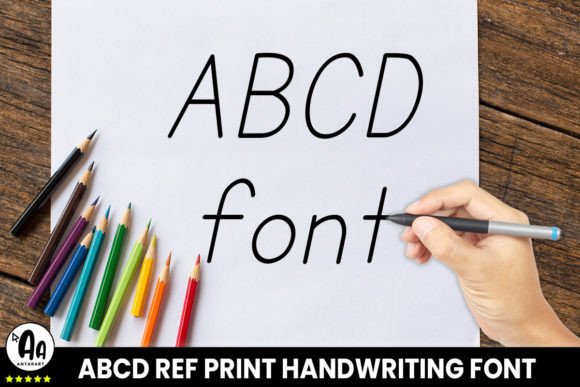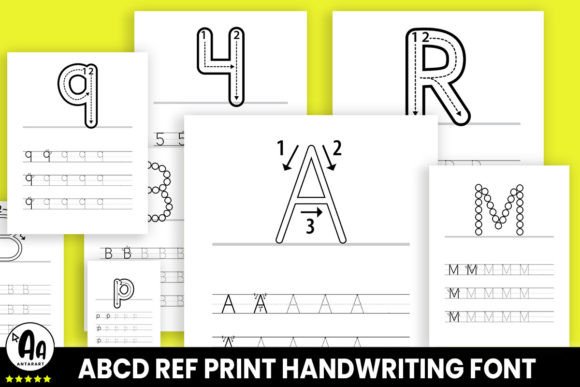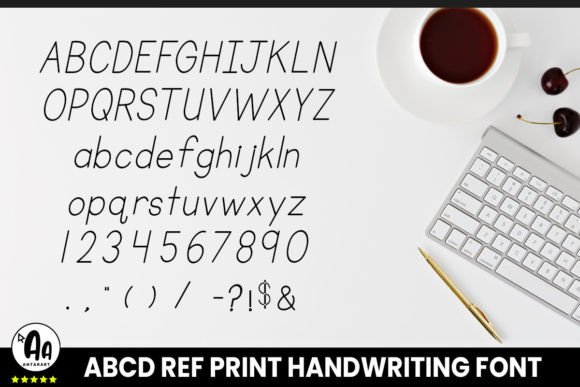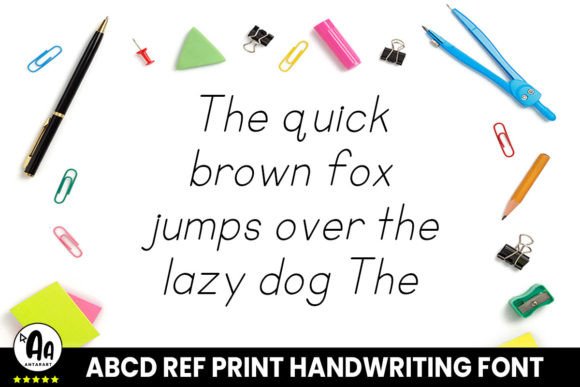
Unlocking the Power of ABCD Ref Regular Italic Font
As a designer, there’s nothing quite like the thrill of bringing a new project to life. The blank page stares back at you, begging to be filled with creativity and imagination. But sometimes, it’s the smallest details that can make all the difference. For me, that moment came when I discovered the ABCD Ref Regular Italic Font. Based on the D’Nealian Method US school, this practical display font is a game-changer for anyone looking to create engaging educational materials.
The ABCD Ref Regular Italic Font is a versatile tool that allows users to create thousands of worksheets with ease. Its unique design makes it an ideal choice for those who want to learn or teach the print alphabet in an enjoyable and interactive way. As a designer, I can appreciate the value of a well-designed font like this – it’s a valuable resource that can elevate any project and make it stand out from the crowd.
Abcd Ref Regular Italic Font Key Features
- Font Style: Regular Italic, a unique combination of classic and elegant styles.
Designer Review: Abcd Ref Regular Italic Font
Overall, I’m impressed with the Abcd Ref Regular Italic Font ✨. It’s a beautiful, elegant font that can add a touch of sophistication to any design project. The italic style gives it a unique flair that’s perfect for titles, headings, or any text that needs to stand out.
The font’s legibility is also excellent ✨. The letters are well-formed and easy to read, even at smaller font sizes. The font’s x-height is also well-balanced, making it suitable for body text as well.
- Beautiful, elegant design ✨
- Unique italic style ✨
- Excellent legibility ✨
- Well-balanced x-height ✨
While the Abcd Ref Regular Italic Font is a great choice for many projects, it’s not without its limitations ⚠️. One of the main issues is that it’s not as versatile as some other fonts. It’s best suited for formal or professional projects, and may not be the best choice for more casual or playful designs.
- Not as versatile as some other fonts ⚠️
- Best suited for formal or professional projects ⚠️
Overall, I’d recommend the Abcd Ref Regular Italic Font to anyone looking for a elegant, sophisticated font for their design project. Just be aware of its limitations and choose it wisely.
For best results, use the ABCD Ref Regular Italic font in titles and headings where you want to add a touch of elegance and sophistication.
Common use cases include:
Book covers and book titles
Business cards and letterheads
Wedding invitations and event materials